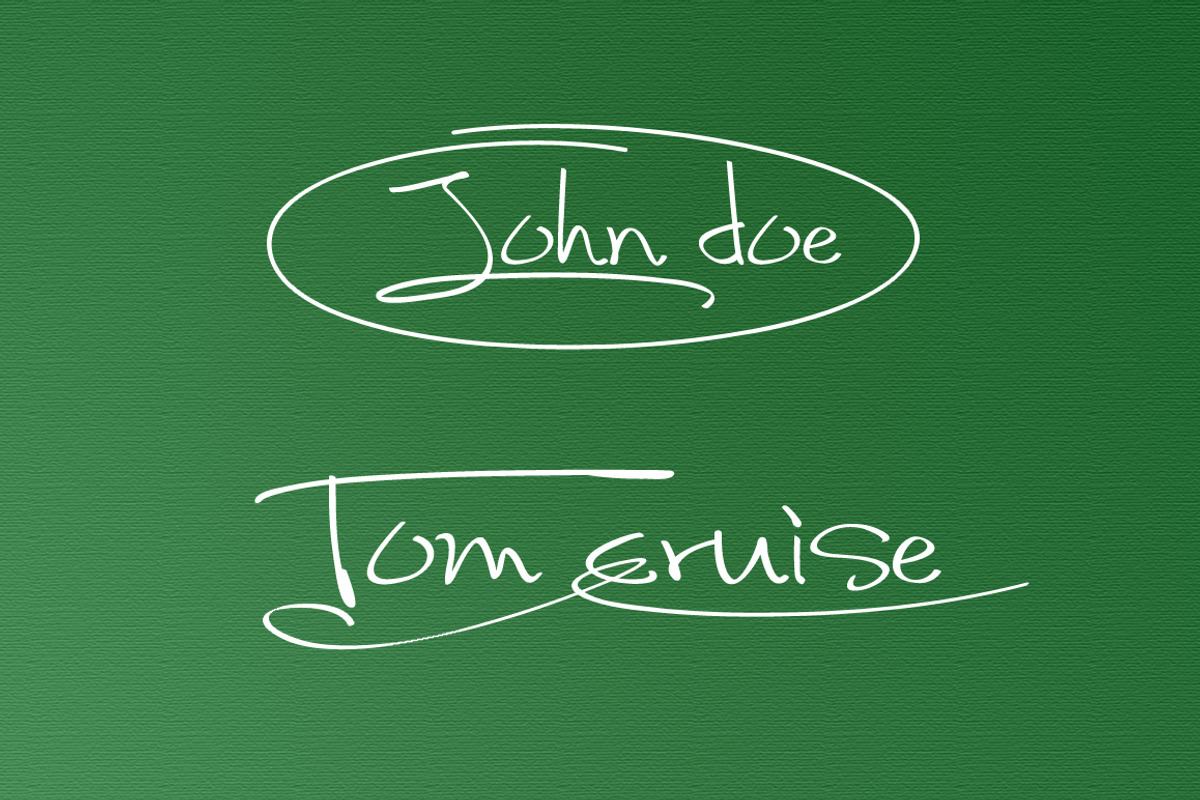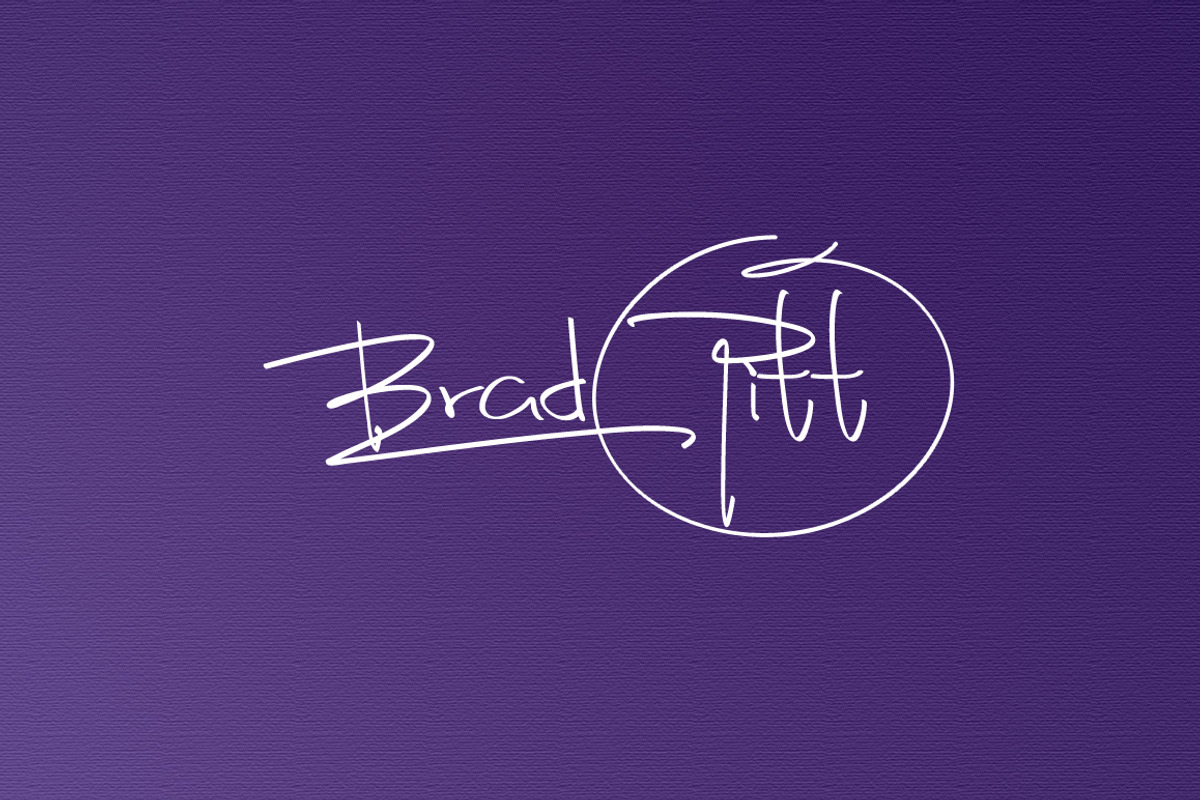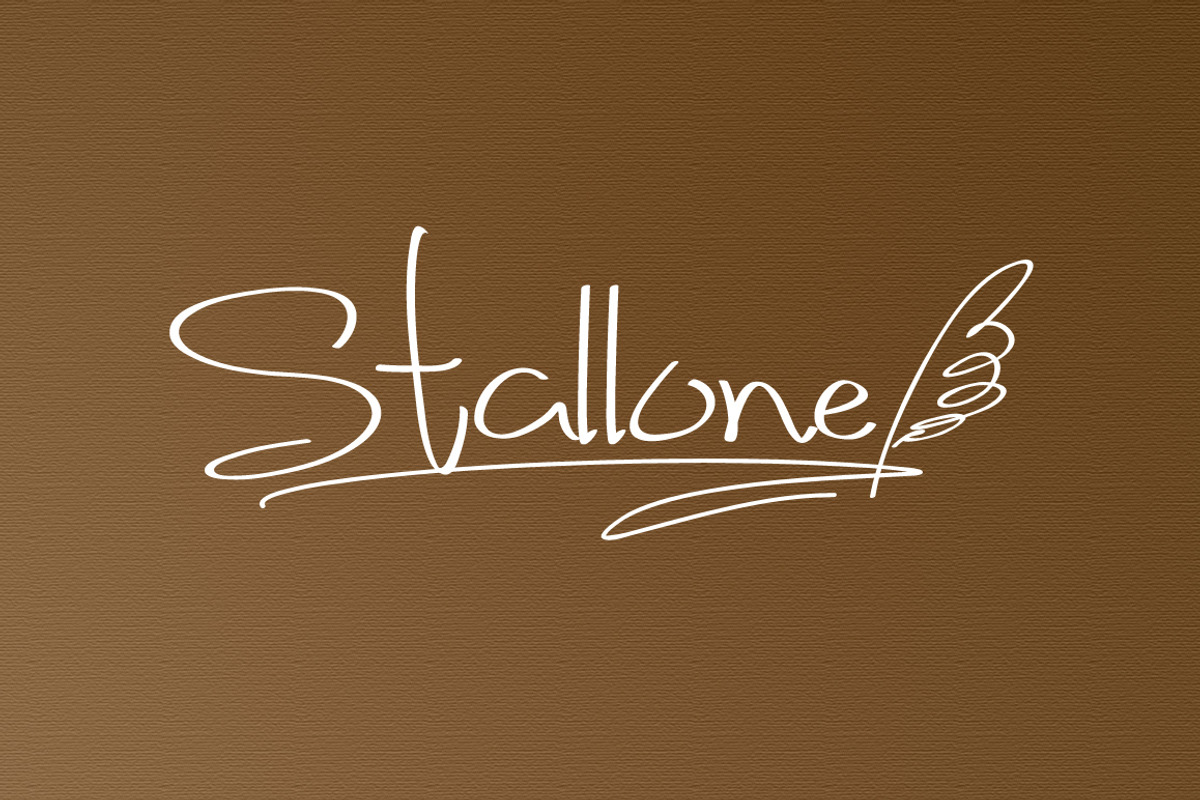
Fancy Signature TrueType Font
Fancy Signature TrueType Font by alphadesign is a font selected for branding, posters, packaging, typography.
Why Fancy Signature TrueType Font is worth a look
Fancy Signature TrueType Font by alphadesign fits naturally into Branding, posters, packaging, typography.